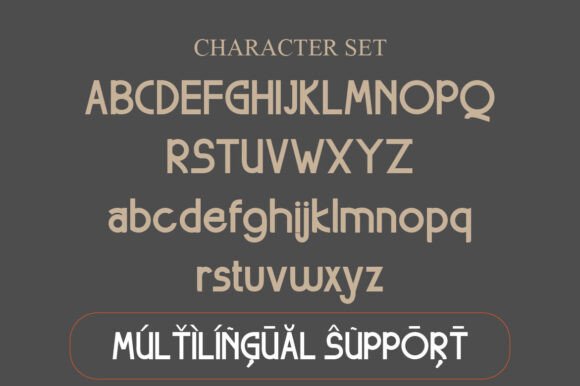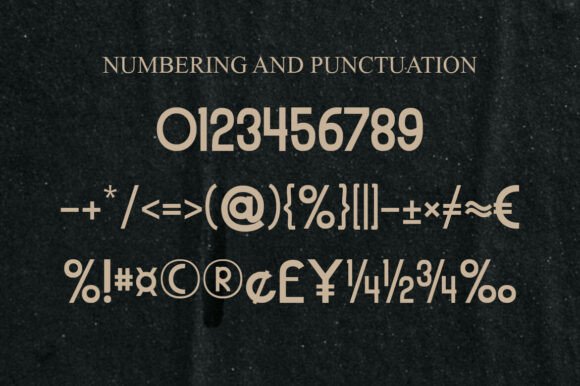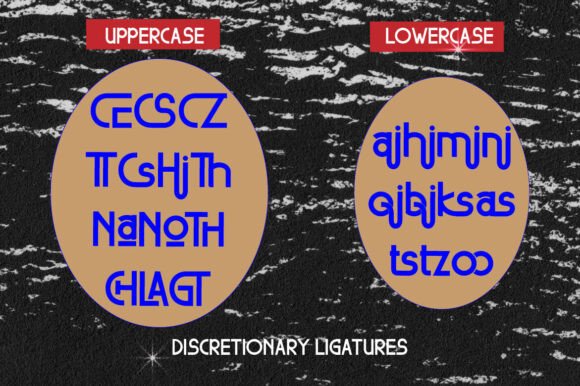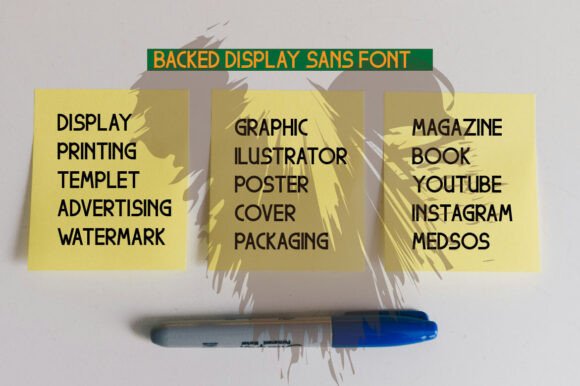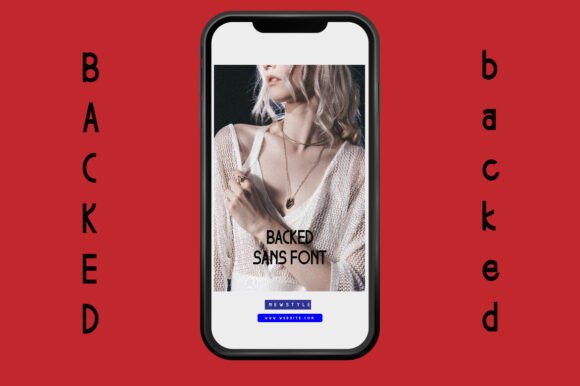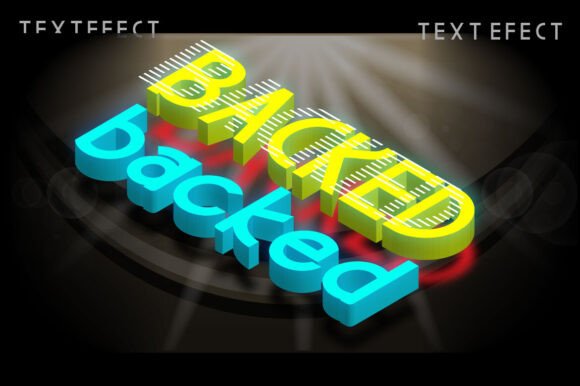
Unveiling the Backed Font: A Fresh and Exceptional Sans Display Typeface
In the world of typography, a new star has emerged, shining brightly with its unique blend of grotesque attributes and charisma. Meet the Backed font, a sans display typeface that is taking the design world by storm. This delightful font is perfectly suited for display projects, adding a distinctive urban edge and bold personality to any design.
A Perfect Blend of Grotesque and Charisma
The Backed font masterfully combines the best of both worlds, bringing together the clean lines and simplicity of sans-serif fonts with the edginess of grotesque typography. The result is a font that is both bold and beautiful, with a unique charm that sets it apart from other fonts in its category.
One of the standout features of the Backed font is its ability to add a touch of urban sophistication to any design. Whether you’re working on a headline, flyer, holiday card, or packaging design, this font is sure to make your project stand out from the crowd.
The Backed font is incredibly versatile, making it perfect for a wide range of design projects. Here are just a few examples of how you can use this exceptional font:
- Headlines: Use the Backed font to create bold and eye-catching headlines that grab attention and draw the reader in.
- Flyers: Add a touch of urban edge to your flyers with the Backed font, making them perfect for promoting events, products, or services.
- Holiday Cards: Create unique and memorable holiday cards with the Backed font, adding a personal touch to your seasonal greetings.
- Packaging Designs: Use the Backed font to add a bold and modern touch to your packaging designs, making your products stand out on store shelves.
- Book Jackets: Give your book jackets a professional and eye-catching look with the Backed font, perfect for authors and publishers.
- Printed Sayings: Use the Backed font to create inspiring and motivational quotes, perfect for printing on posters, stickers, or social media graphics.
- Logos: Create a bold and memorable logo with the Backed font, perfect for businesses and brands looking to make a statement.
- Album Artwork: Add a touch of urban edge to your album artwork with the Backed font, making your music stand out in a crowded market.
Designed to Captivate
The Backed font is designed to captivate and inspire, making it the perfect choice for designers and crafters looking to elevate their creative experiments to new heights. With its unique blend of grotesque attributes and charisma, this font is sure to add a touch of magic to any design.
Whether you’re a seasoned designer or just starting out, the Backed font is an exceptional choice for anyone looking to add a bold and modern touch to their designs. So why settle for ordinary fonts when you can have a font that truly stands out from the crowd?
In conclusion, the Backed font is a fresh and exceptional sans display typeface that is sure to take the design world by storm. With its unique blend of grotesque attributes and charisma, this font is perfect for display projects that require a bold and modern touch.
- Exceptional sans display typeface
- Unique blend of grotesque attributes and charisma
- Perfect for display projects
- Bold and modern touch
- Urban edge and charisma
- Endless design possibilities